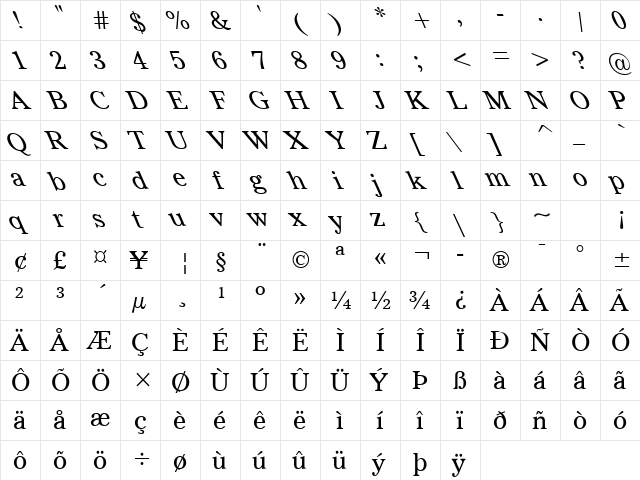
Rats In The Cellar 5 Regular
Design Context for Rats In The Cellar 5 Typeface
Rats In The Cellar 5 takes a measured approach to typography — its balanced proportions and neutral character make it a reliable workhorse for both digital and print work.